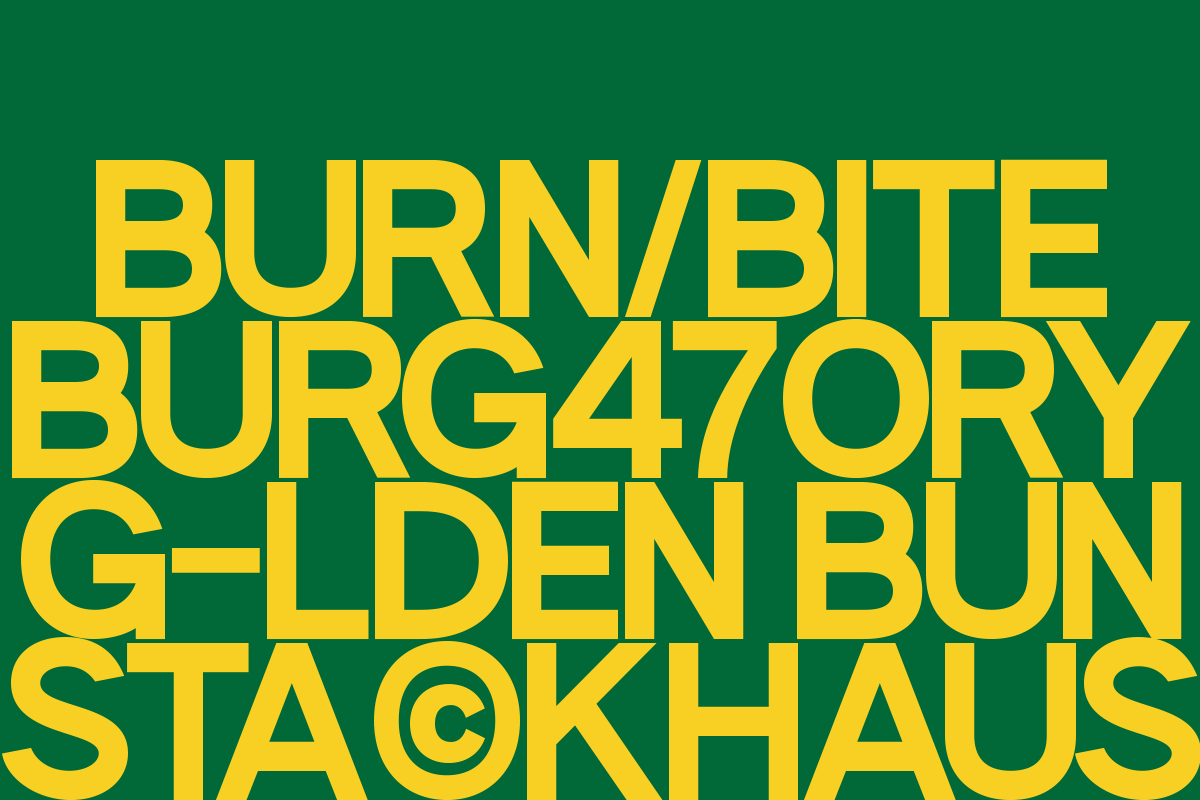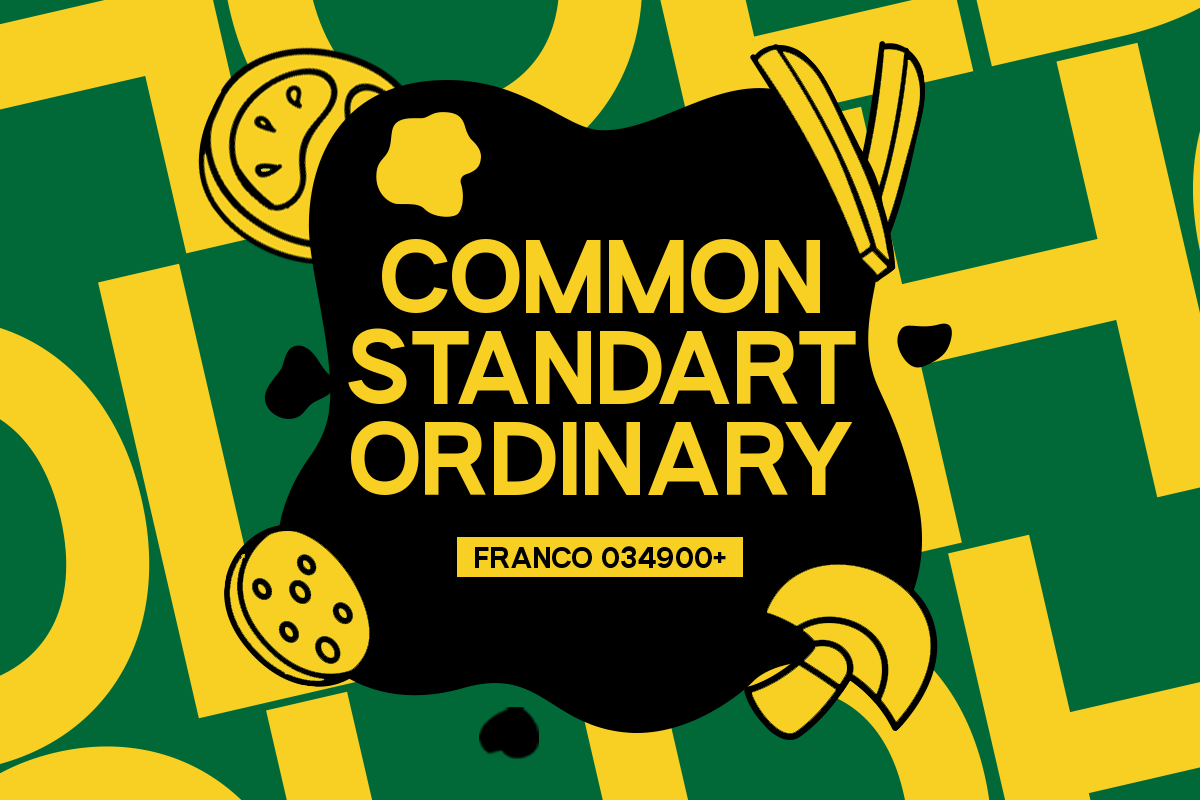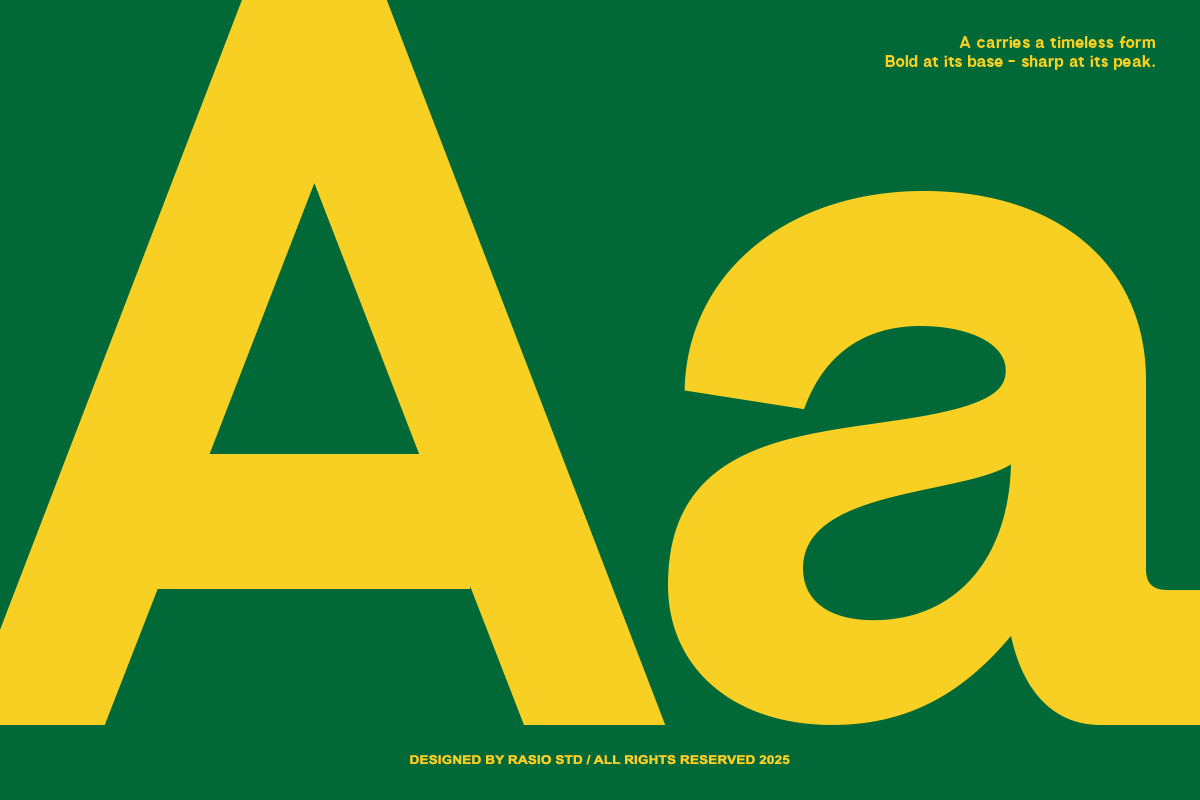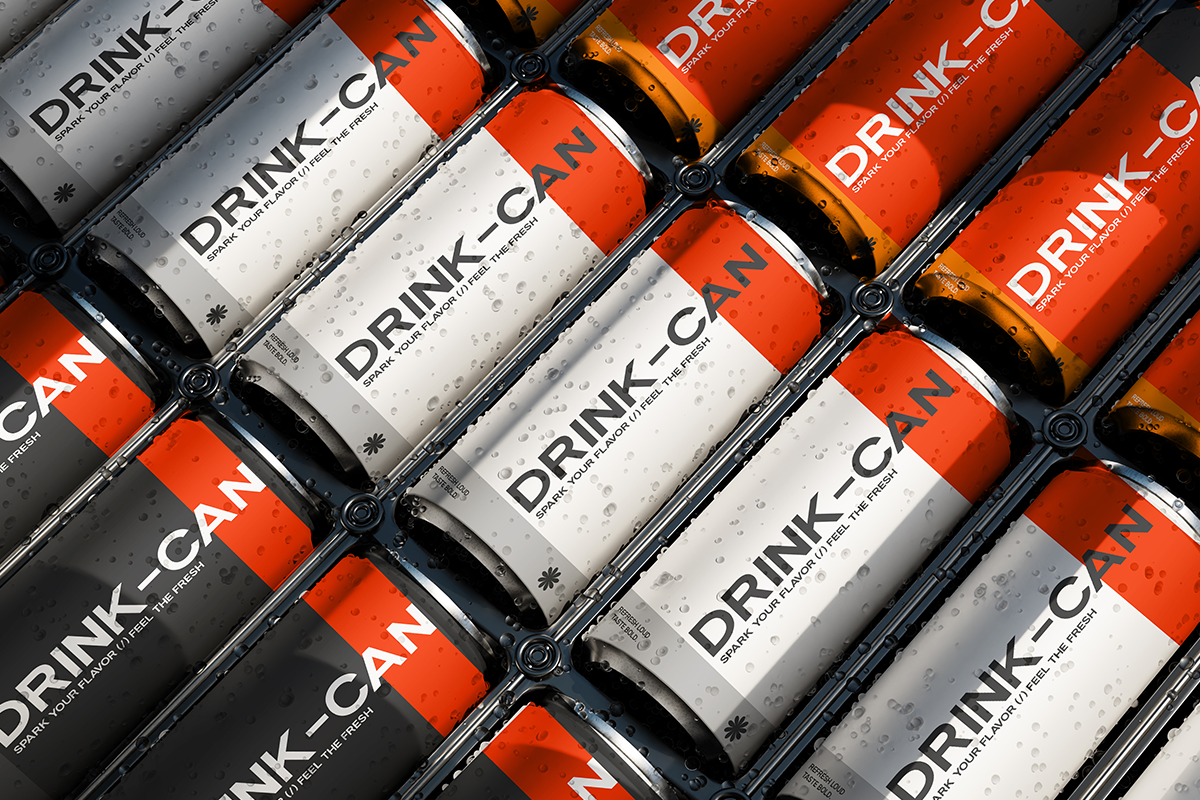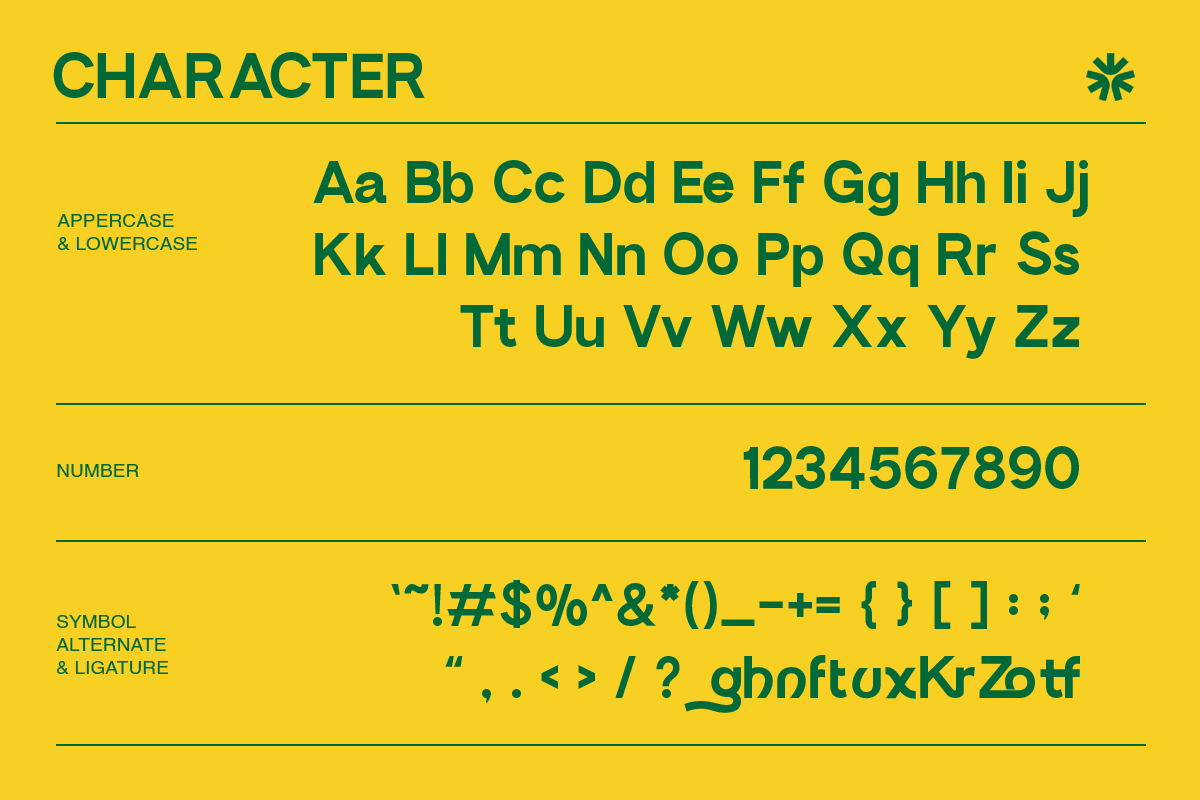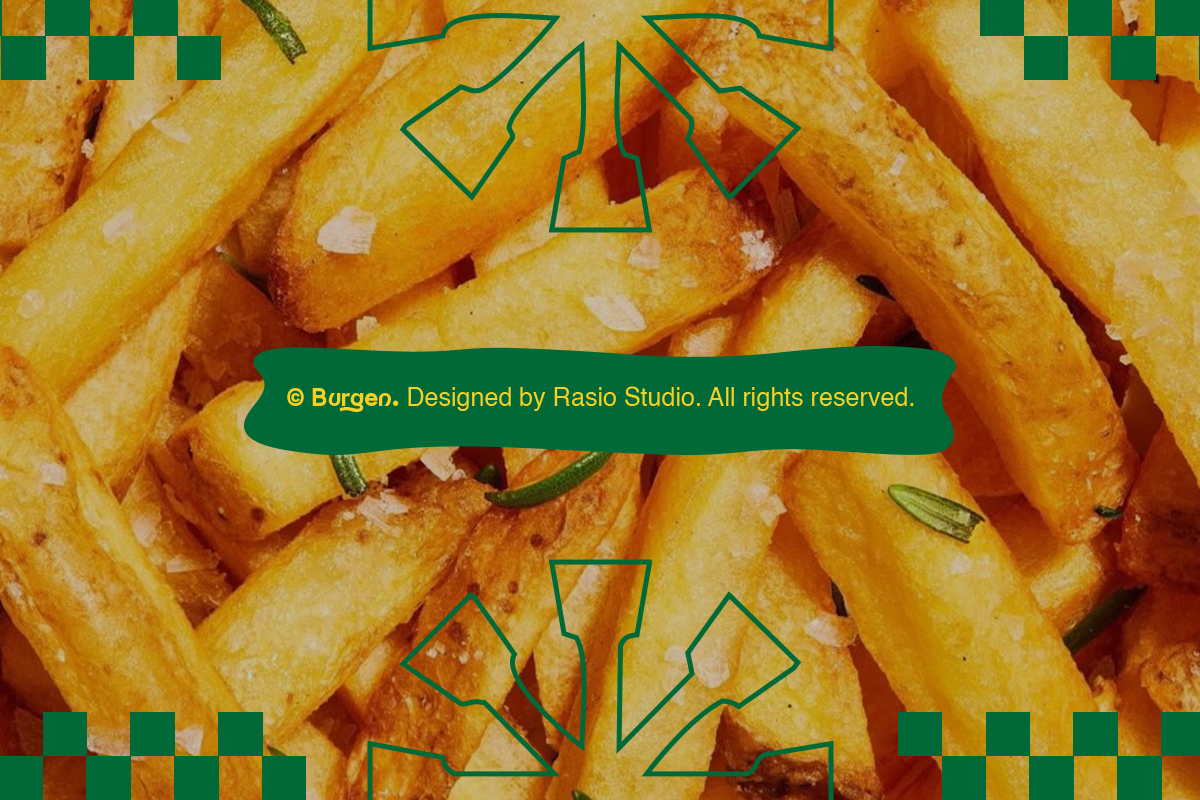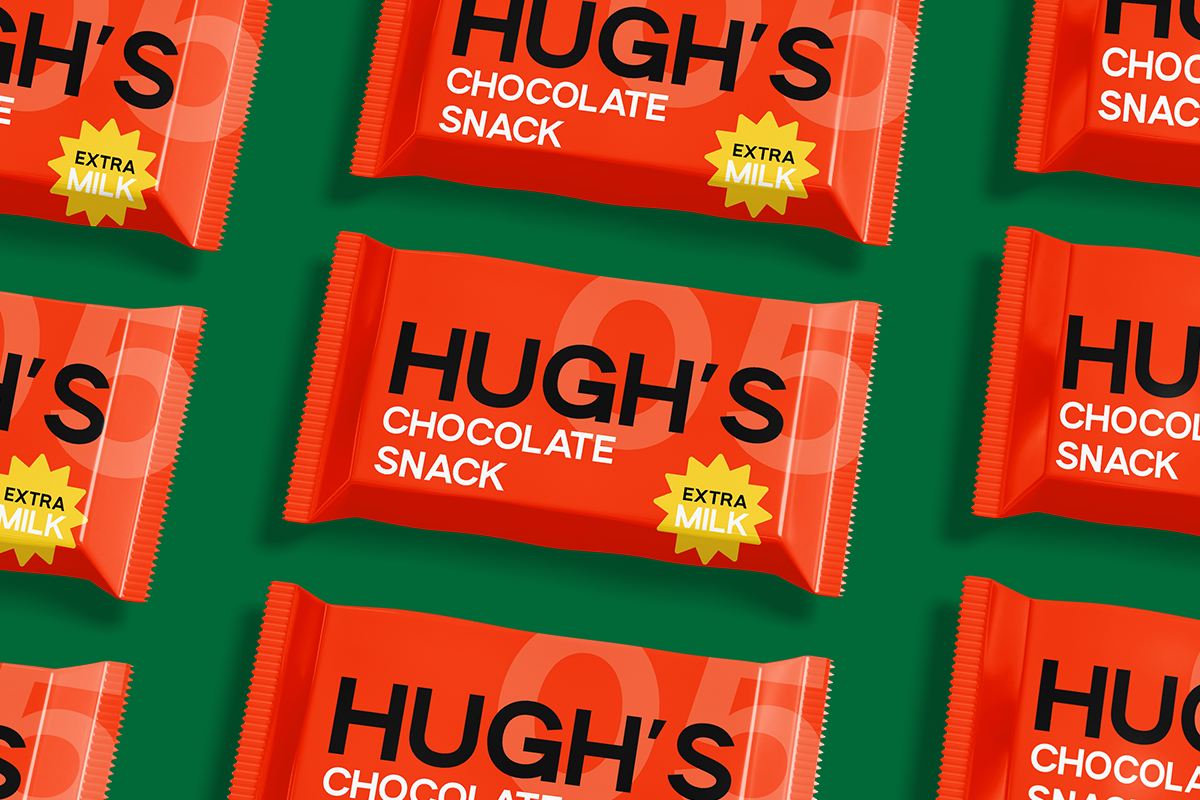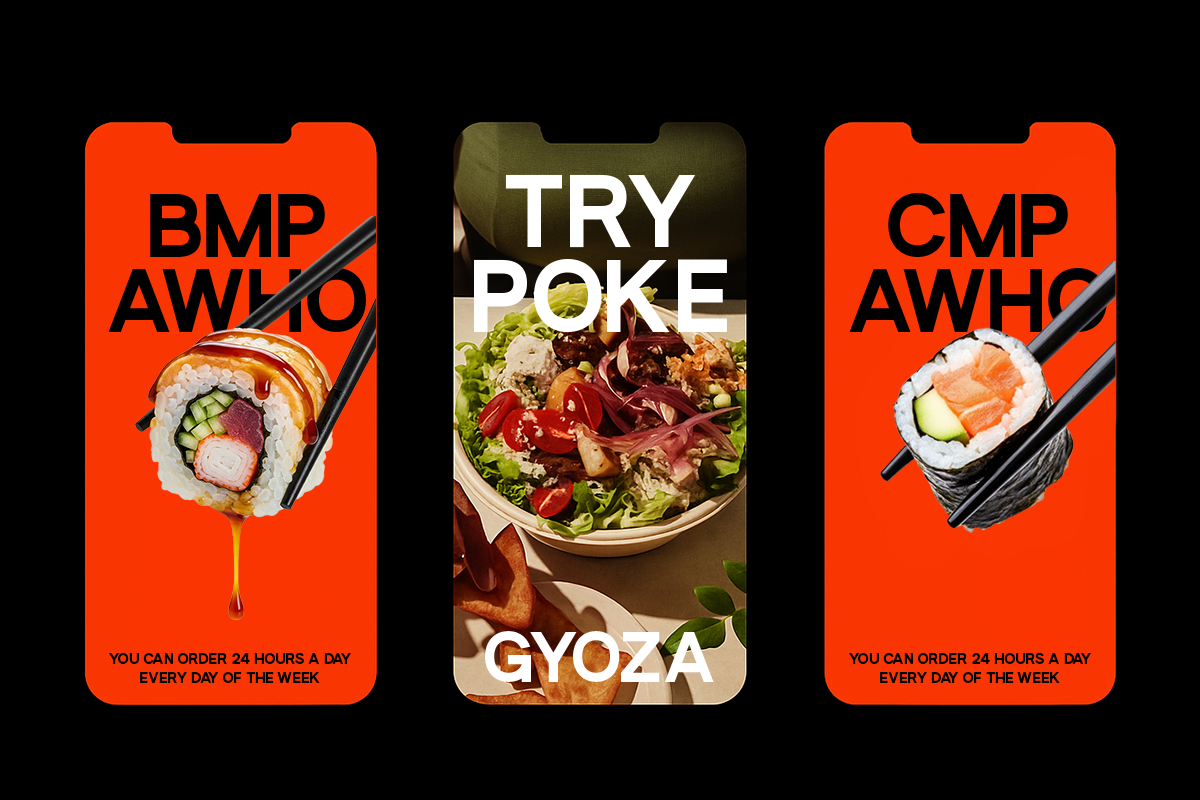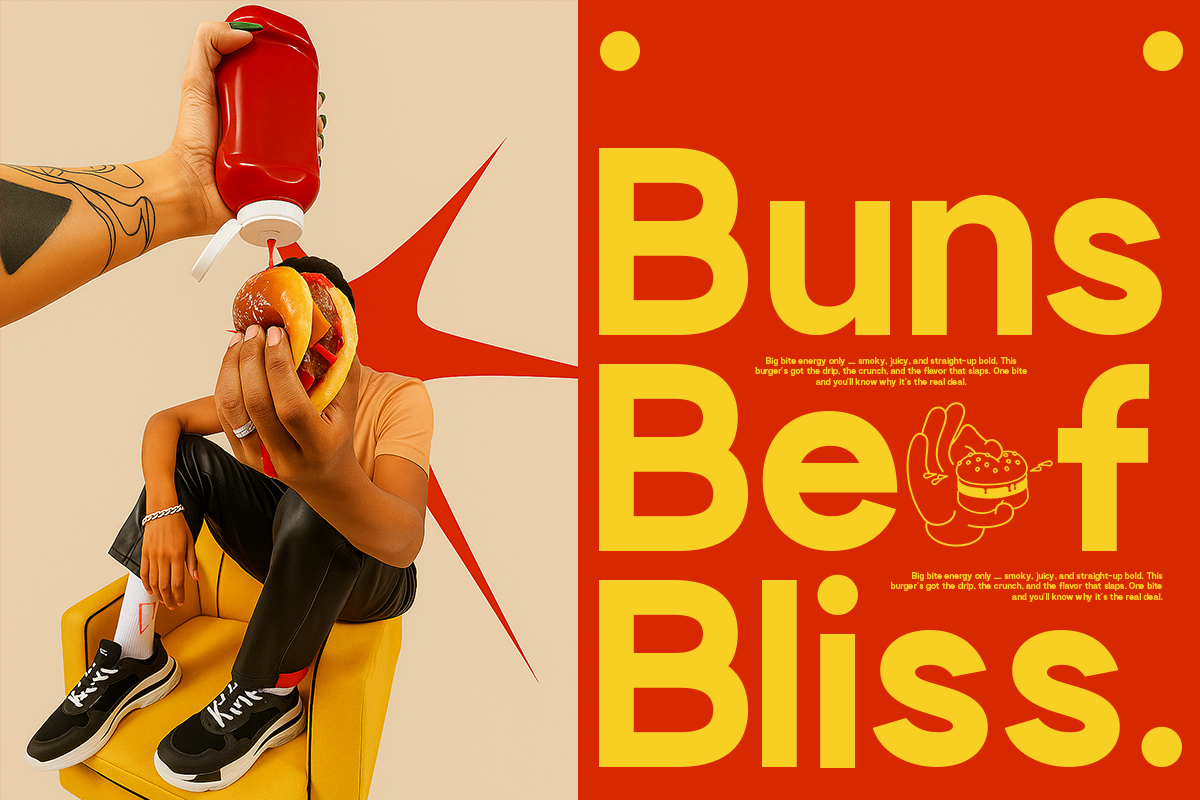
Burgendo Sans Serif Display Font
Burgendo is a bold and confident sans serif display typeface crafted with playful geometry and clean construction. It captures the spirit of modern design through thick curves, sharp edges, and dynamic letter alternates that make any word pop with energy. Perfectly balanced between friendliness and strength, Burgen brings personality to branding, packaging, and editorial compositions.
This font includes uppercase, lowercase, numbers, punctuation, alternates, ligatures, and multilingual support giving designers full flexibility for striking typographic compositions in both print and digital formats. Relevance and Use Cases is perfect for branding, packaging, poster headlines, food and beverage designs, and modern advertising layouts. Burgen stands out with its bold presence and approachable forms making it ideal for creative campaigns that need both impact and personality.
- Bold geometric sans serif structure with a strong and confident presence
- Smooth rounded curves combined with clean, modern letterforms
- Distinctive ligatures and playful alternates adding visual personality
- Balanced stroke weight for clear readability in large display settings
- Tight yet controlled spacing for impactful headlines and compositions
- Bold brand identities that aim for a fun and modern visual presence
- Posters, headlines, and display typography with strong visual impact
- Packaging design for food, beverage, and lifestyle products with vibrant appeal
- Social media graphics and marketing content that need to stand out
- Creative campaigns, event promotions, and youthful branding concepts